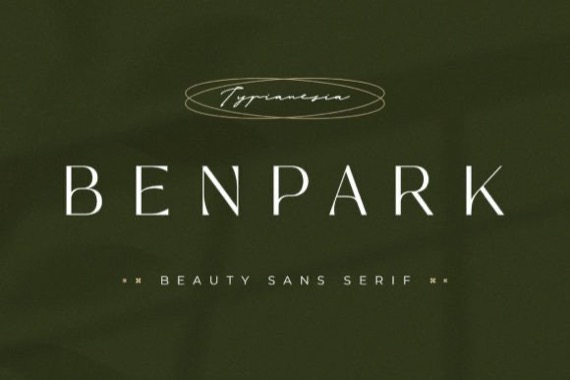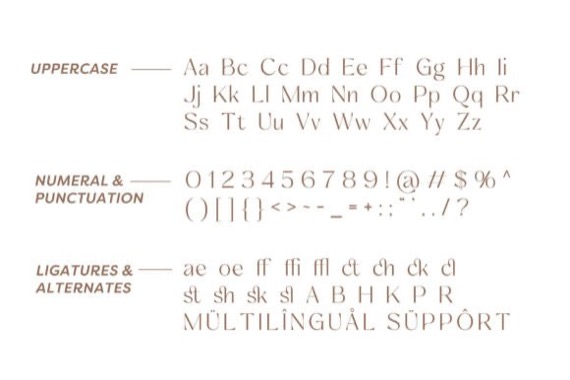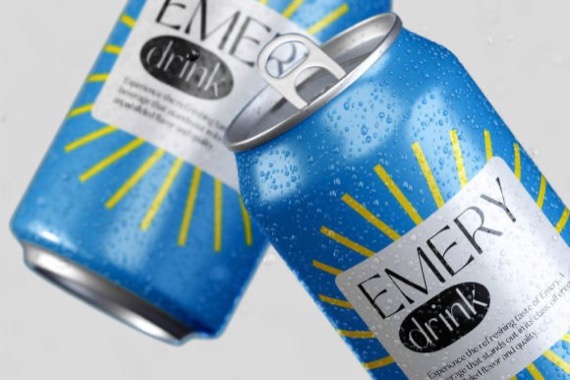
Benpark Font is a beautiful bold sans serif typeface with a Blessed & friendly feel with a lot of elegant line. Fall in love with its incredibly versatile style and use it to create gorgeous wedding invitations, beautiful stationary art, eye-catching social media posts, and much more!
Benpark Display Sans Font
Designer, Publisher: Typia Nesia